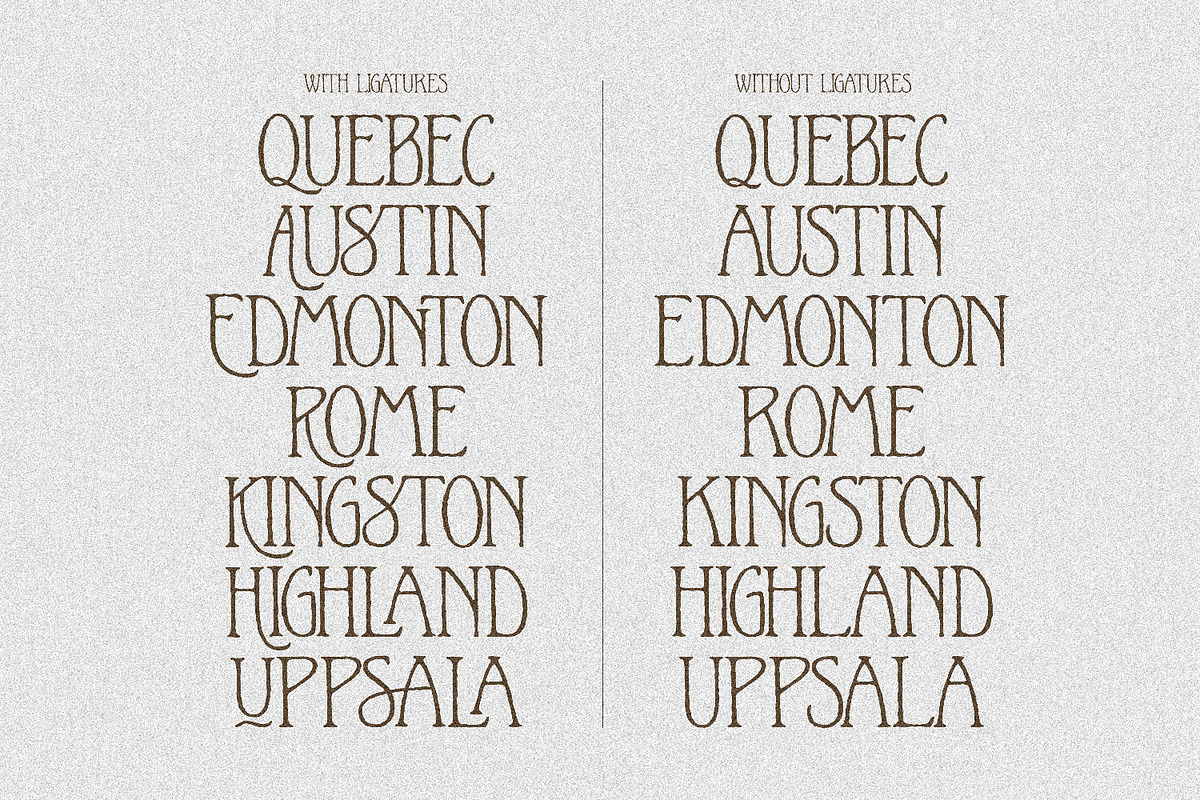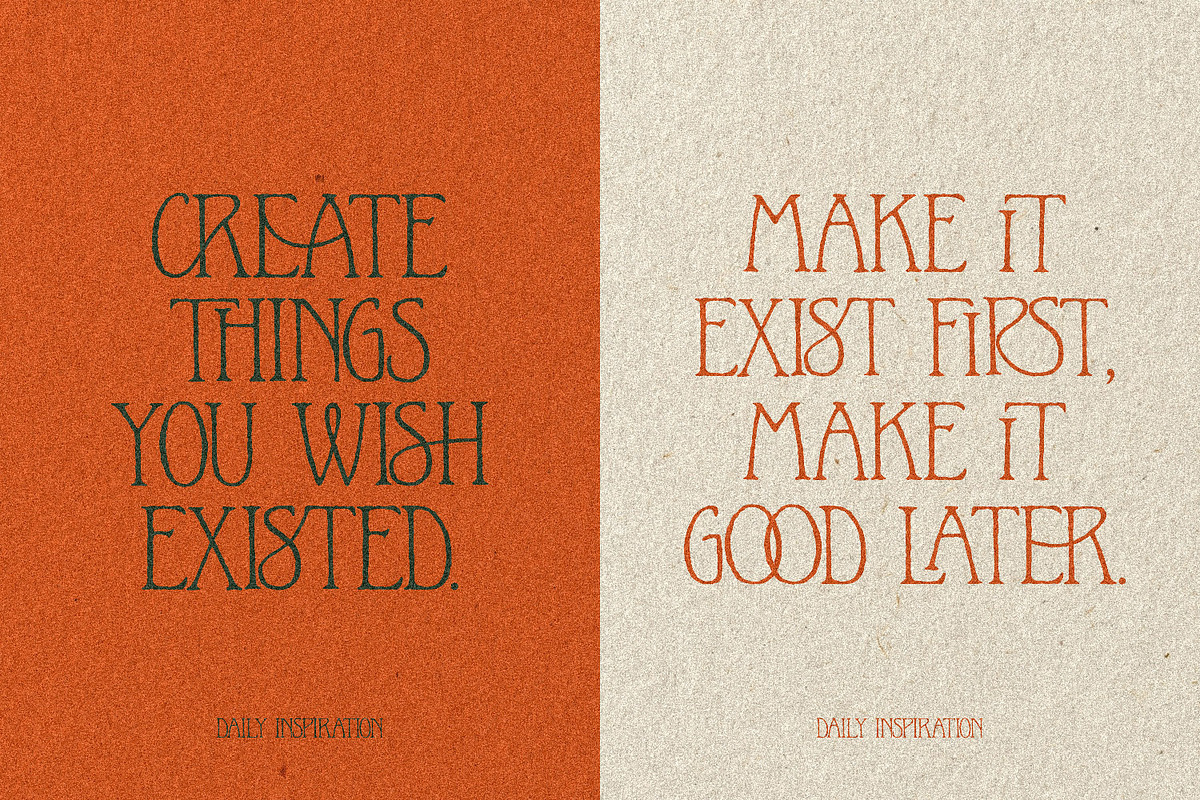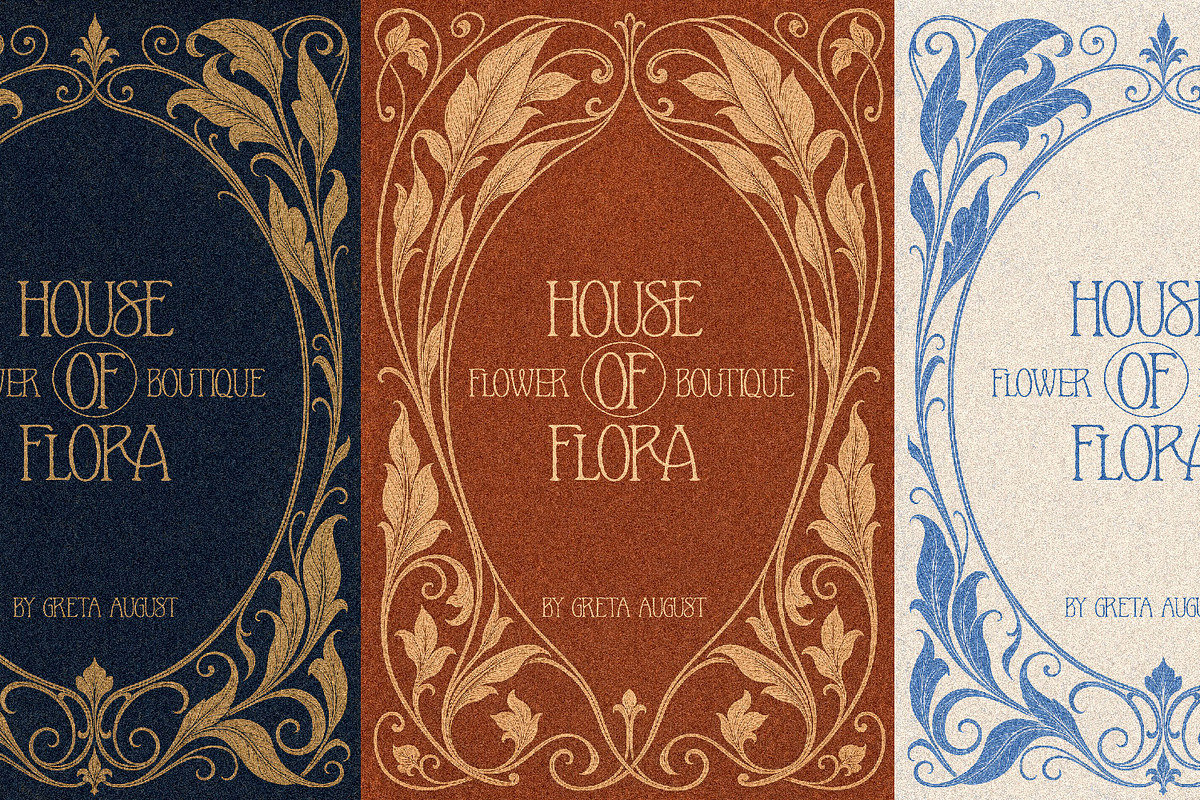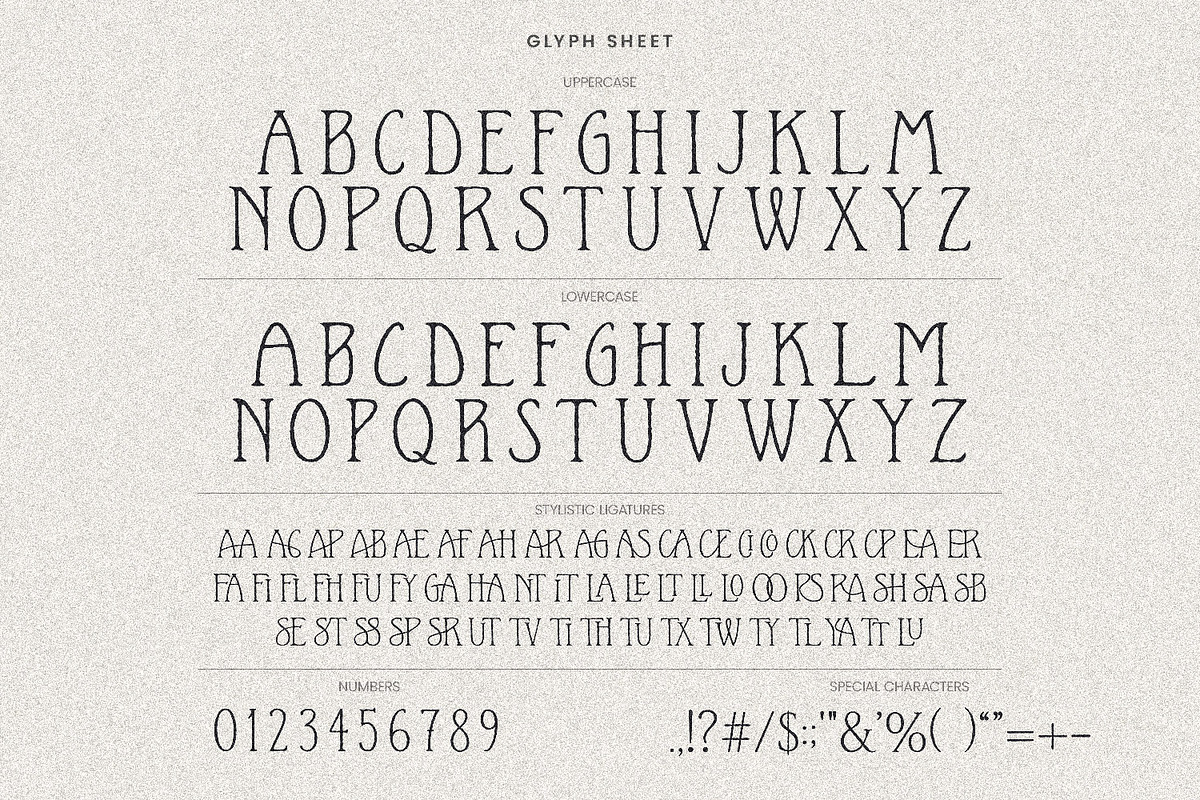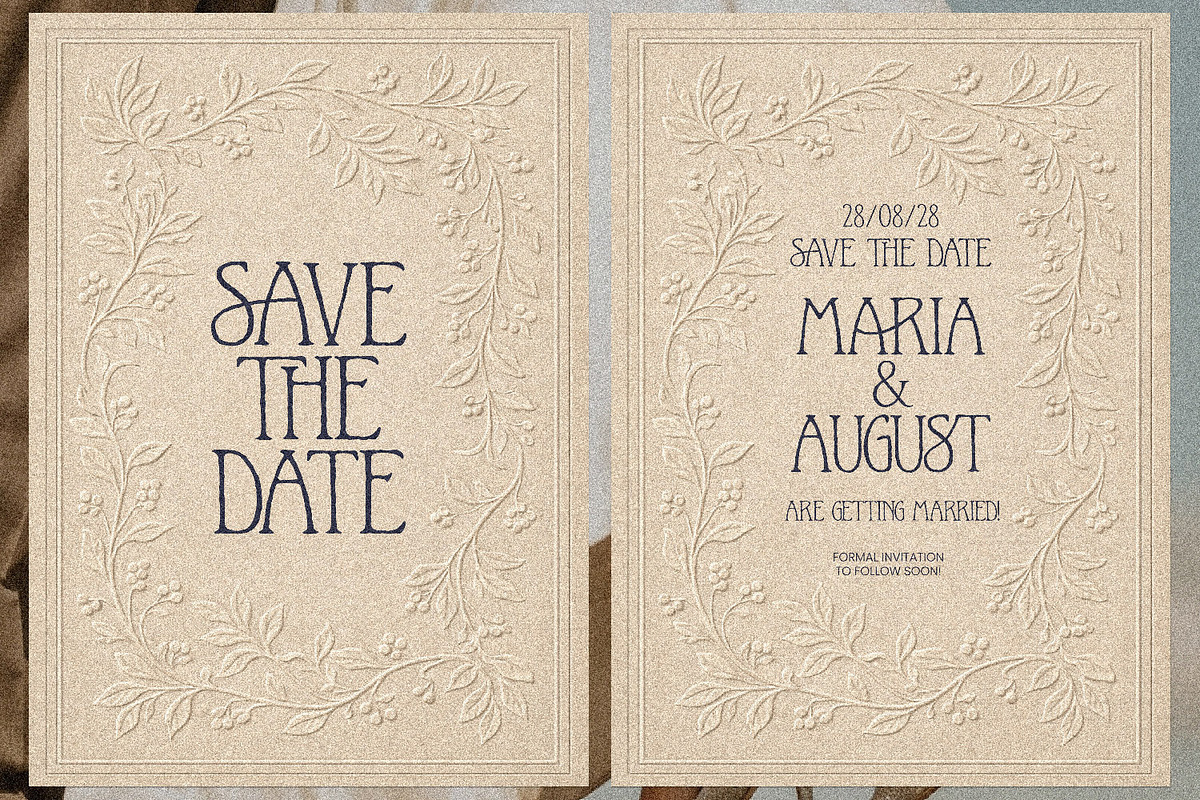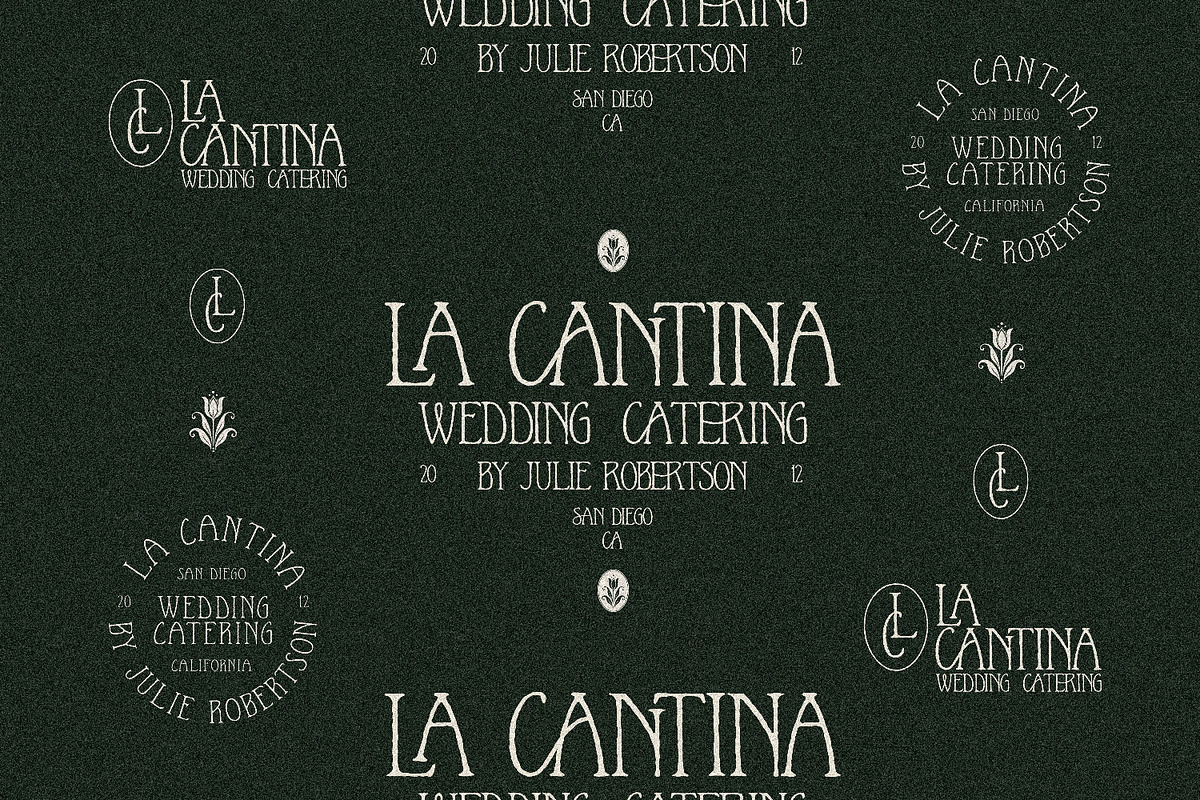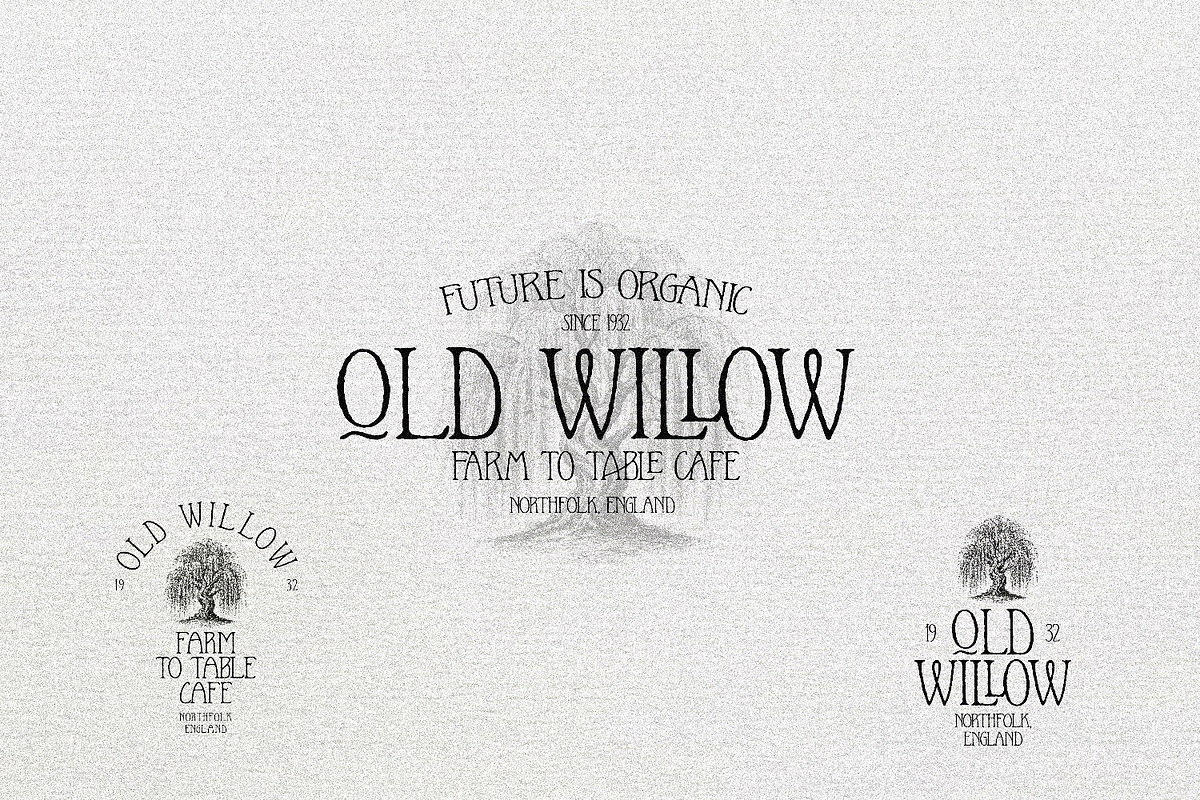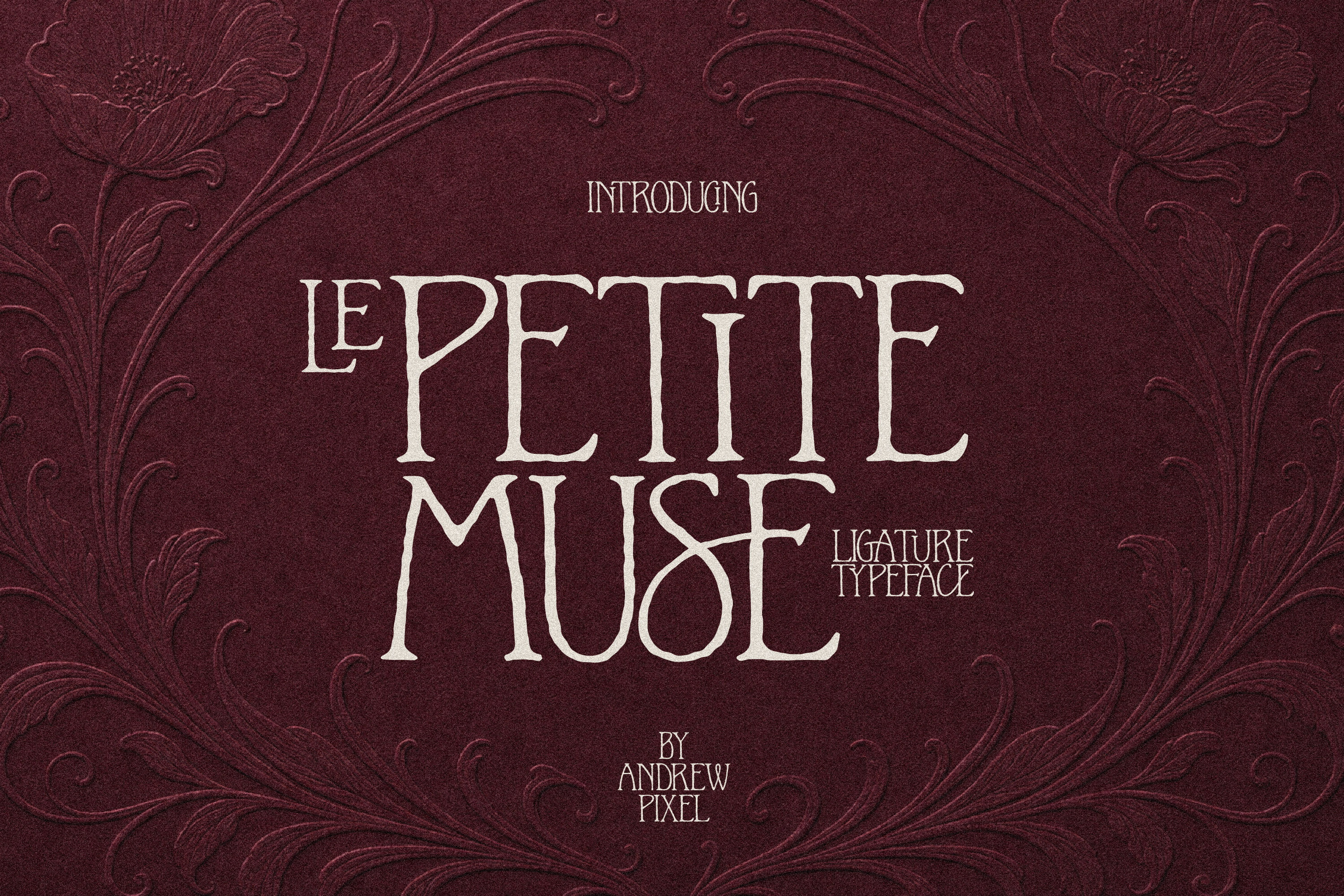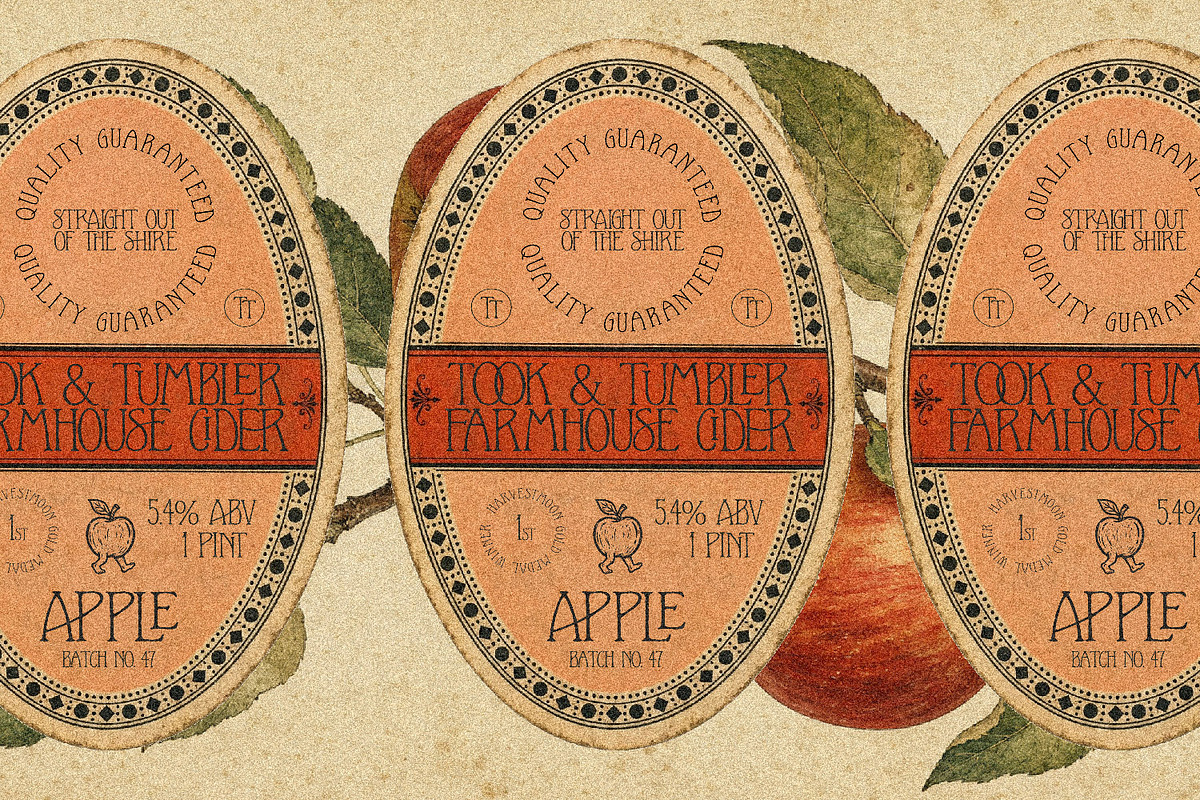
Le Petite Muse Vintage Ligature Font
Say hello to Le Petite Muse, a dreamy vintage-inspired font with serious Art Nouveau energy. Think old Parisian perfume labels, antique book covers, and that romantic, slightly moody aesthetic we all can't get enough of.
This font comes packed with gorgeous ligatures that give your text that hand-crafted, "found in a vintage shop" feel — no design degree required.
✦ Wine, candle & perfume labels
✦ Wedding invitations & save the dates
✦ Book covers (hello, dark academia & romance novels!)
✦ Boutique branding & logos
✦ Tattoo designs
✦ Poster art & album covers
✦ Instagram graphics & Pinterest pins
✦ Packaging for handmade goods
✦ Café menus & apothecary-style products
Uppercase & lowercase letters
A lovely set of stylistic ligatures